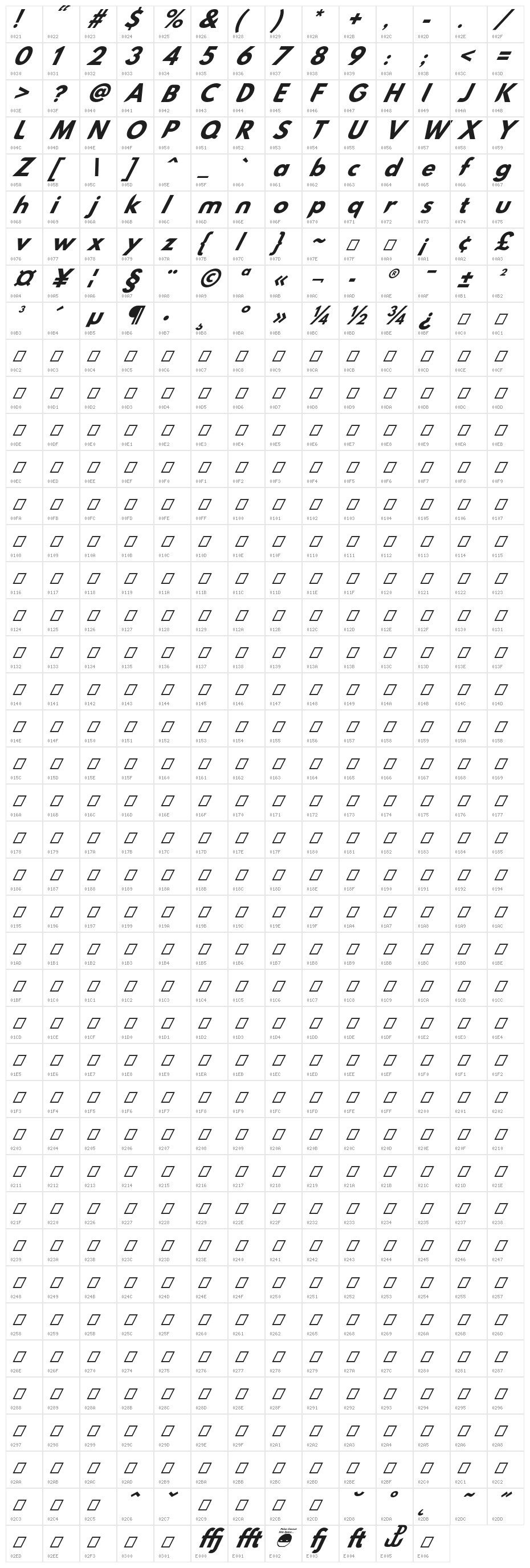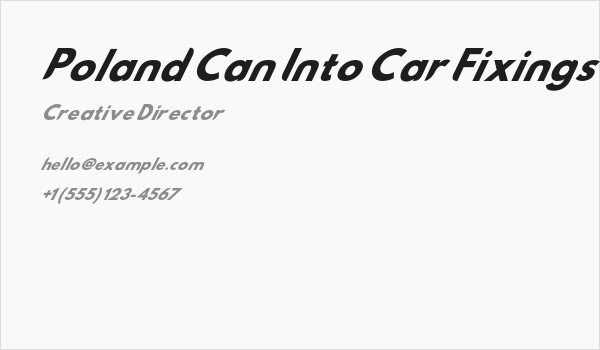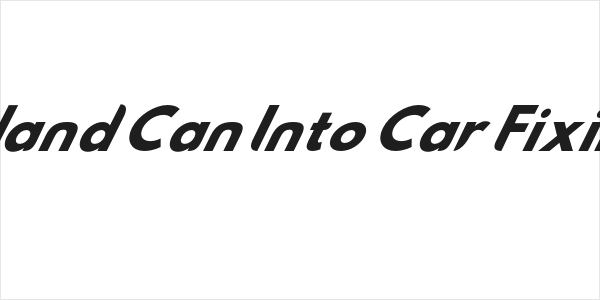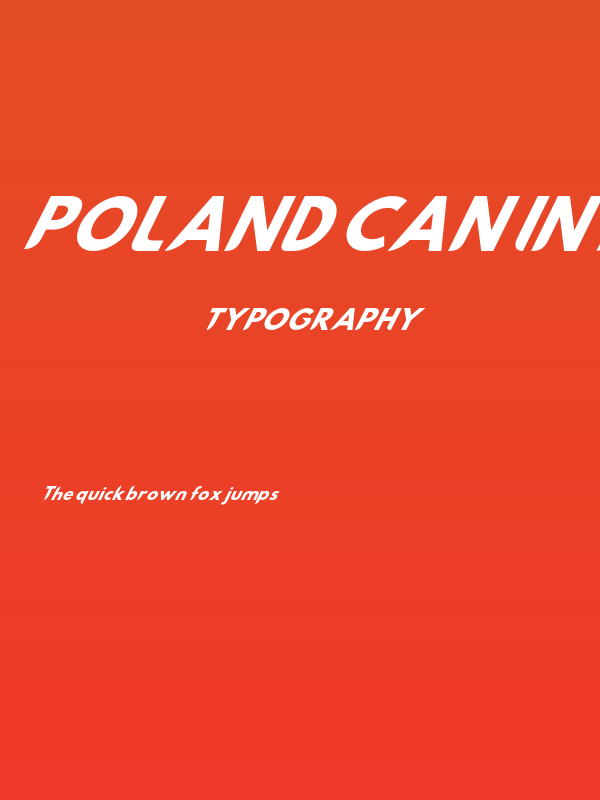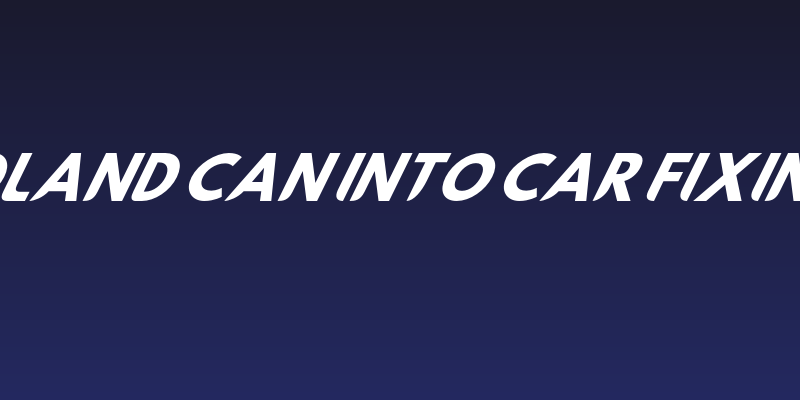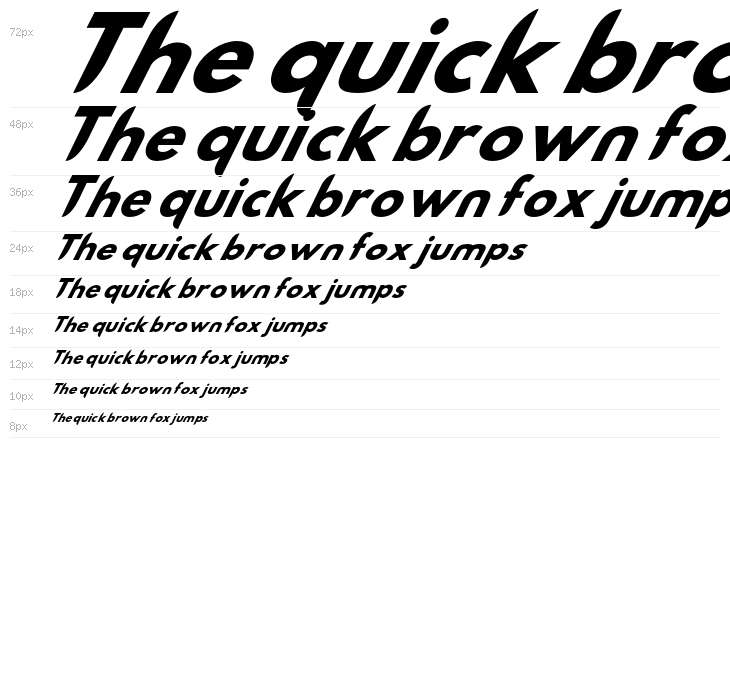
Poland Can Into Car Fixings Font
Poland Can Into Car Fixings Description
This font features a bold and dynamic style with a strong italic slant, giving it a sense of motion and energy. The characters are well-defined with a consistent stroke width, making them highly legible. The uppercase letters are slightly wider than the lowercase, providing a balanced and harmonious appearance. The numerals are clear and distinct, matching the overall boldness of the alphabet. Special characters are included, maintaining the same energetic style. This font is ideal for projects that require a modern and impactful look.
| Use Case | Headlines, Logos, Advertising |
| Proposed Projects | Ideal for branding, advertising, sports-related designs, and dynamic headlines. |